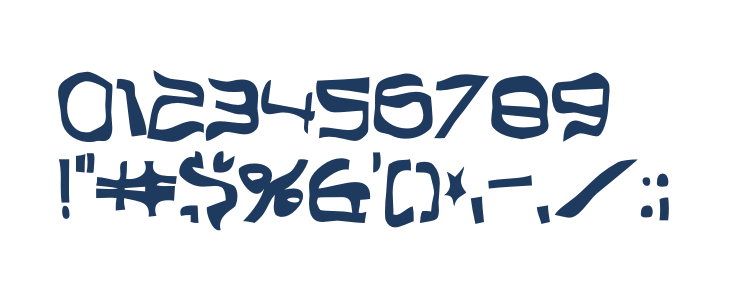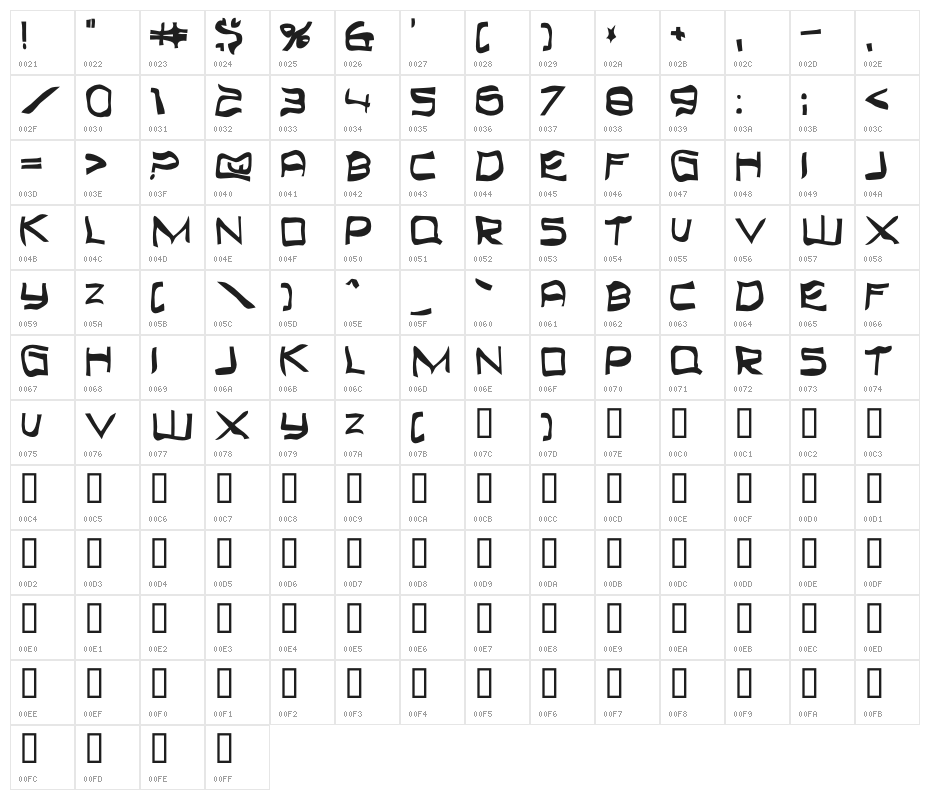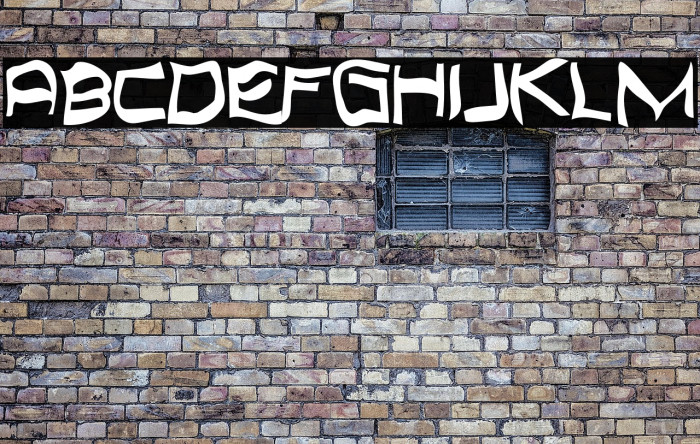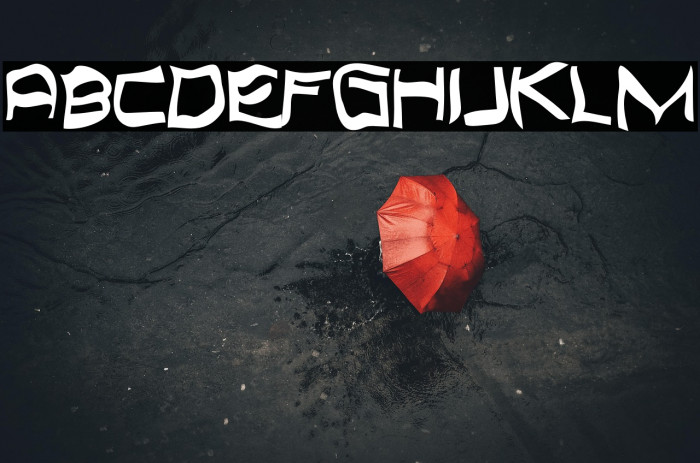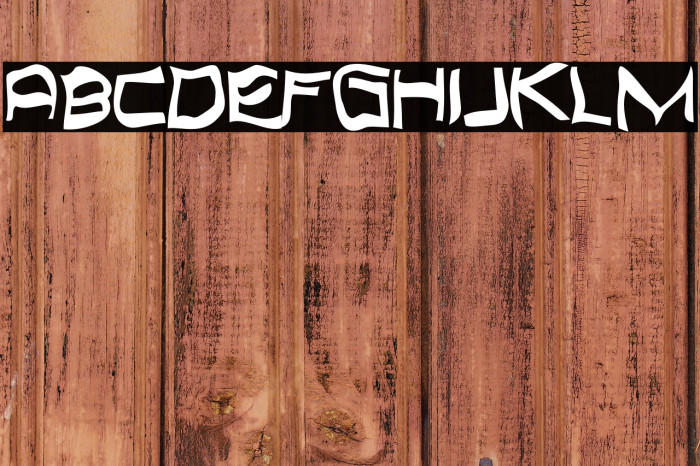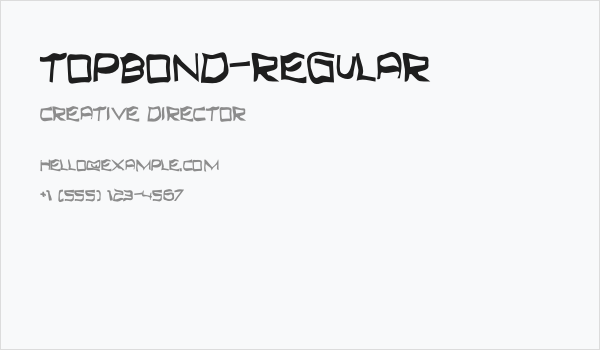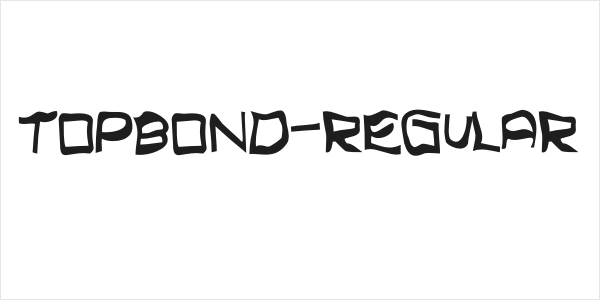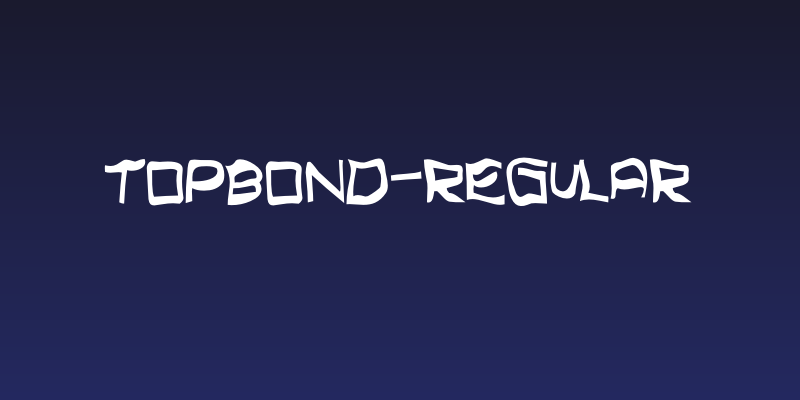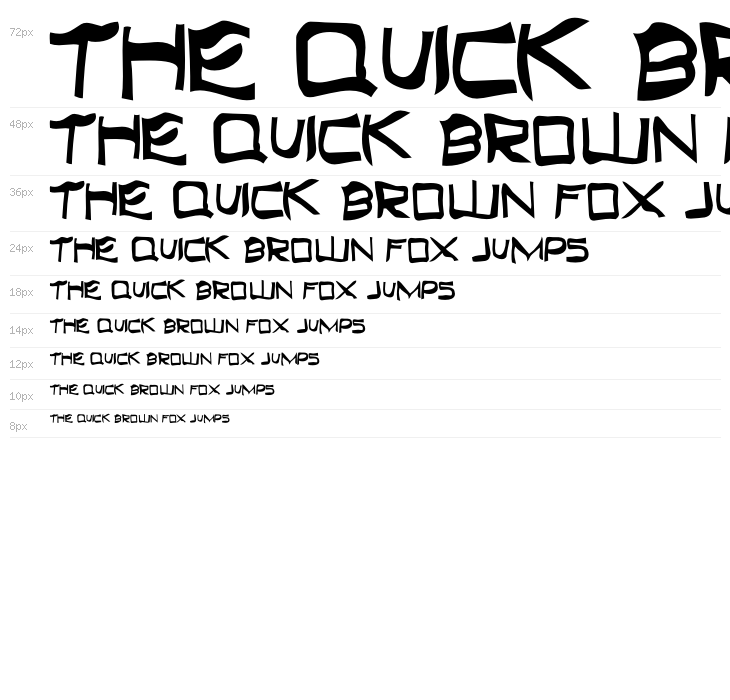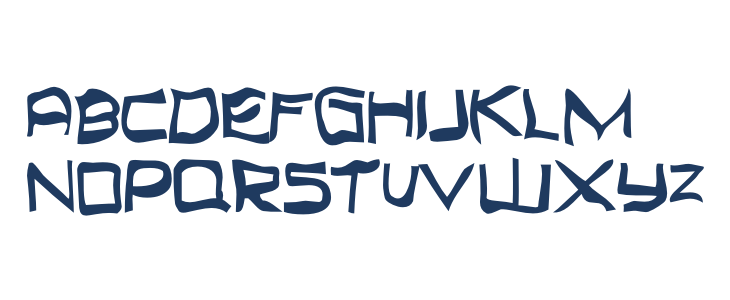
TopBond-Regular Font
TopBond-Regular Description
This font features a bold and dynamic style with a unique, edgy appearance. The characters have a hand-drawn quality, with irregular strokes and a slightly distorted form that gives them a rebellious and artistic flair. The uppercase and lowercase letters maintain a consistent height, while the numbers and special characters follow the same bold and expressive design. The overall look is striking and unconventional, making it stand out in any design project.
| Overall Style | Modern, Artistic |
| Use Case | Logos, Headlines, Posters |
| Proposed Projects | Ideal for music album covers, streetwear branding, graffiti art, and edgy poster designs. |